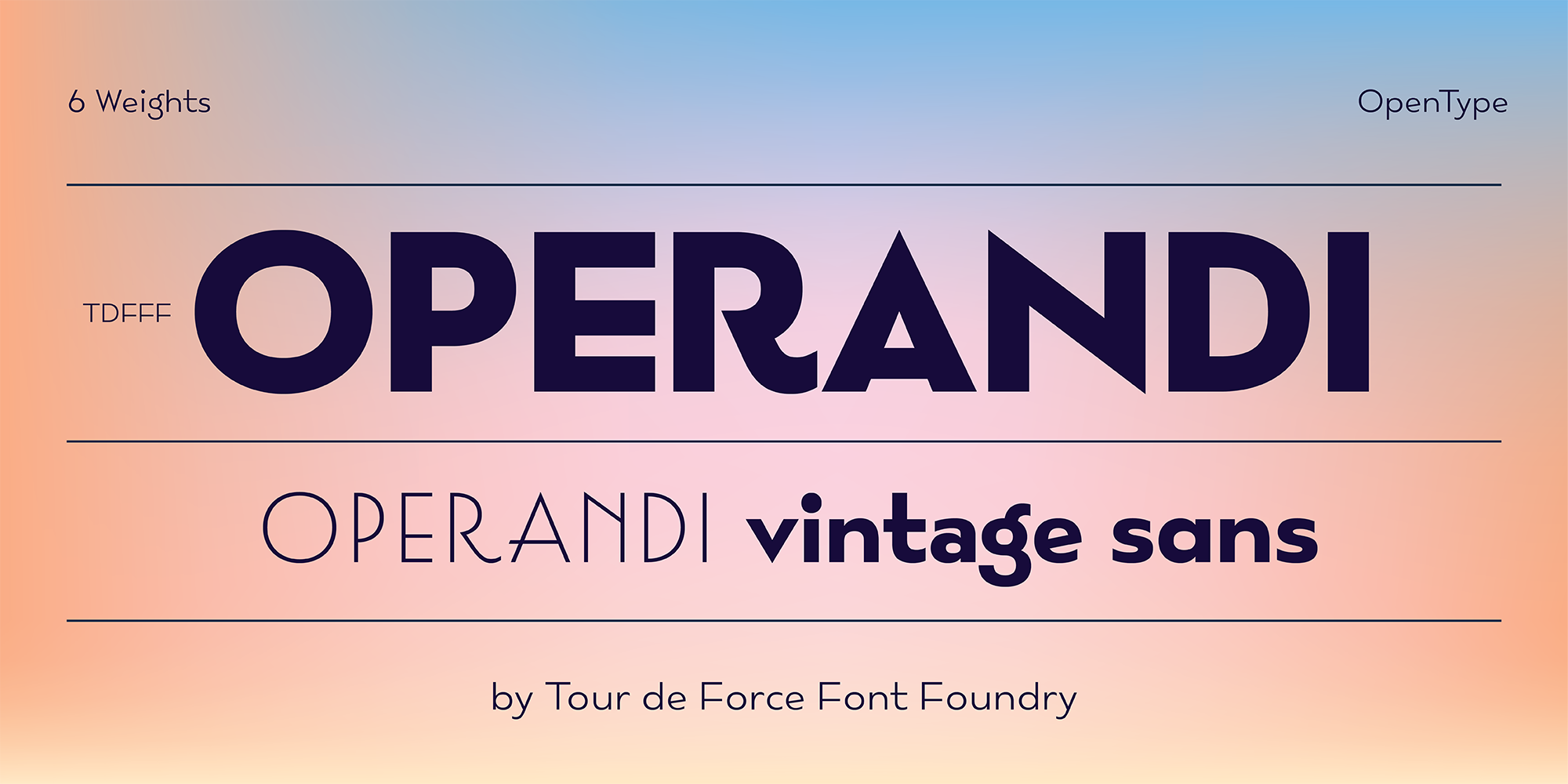
This sleek and professional typeface is ideal for corporate branding, financial reports, website headers, business cards, editorial projects, and high-end advertising. It’s designed for those who want their design to communicate reliability, elegance, and authority.
What makes Operandi Font so exciting is its clean lines, balanced proportions, and modern aesthetic. It combines readability with a stylish edge, making it perfect for both digital and print applications where professionalism is key.
The Operandi Font family includes various weights and styles such as Light, Regular, Medium, Bold, and Italic. With full multilingual support and carefully crafted kerning, it ensures your message is clear and visually appealing across all platforms.